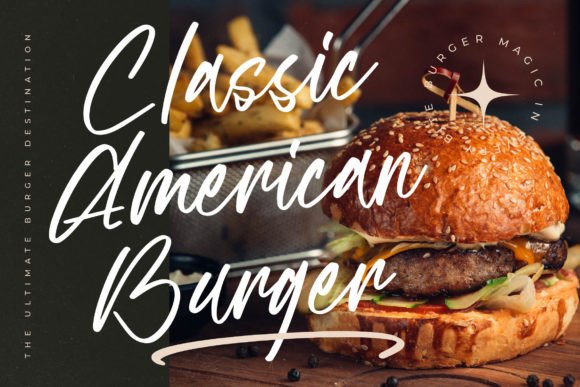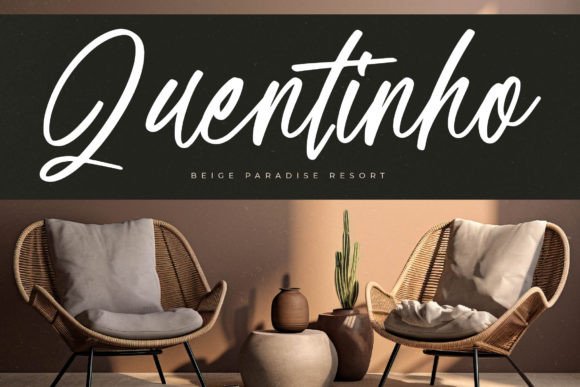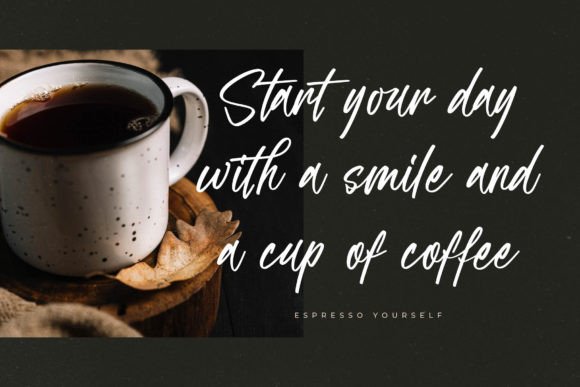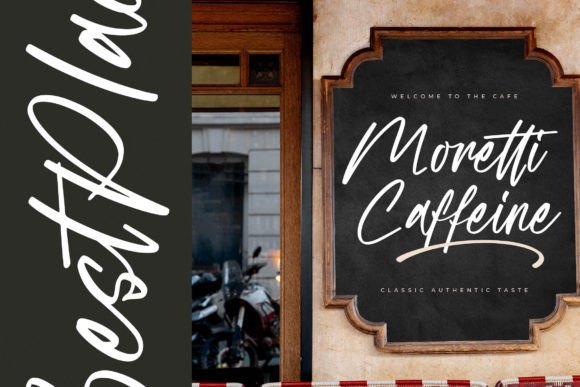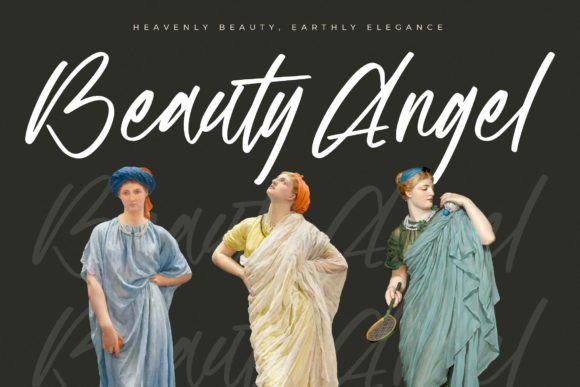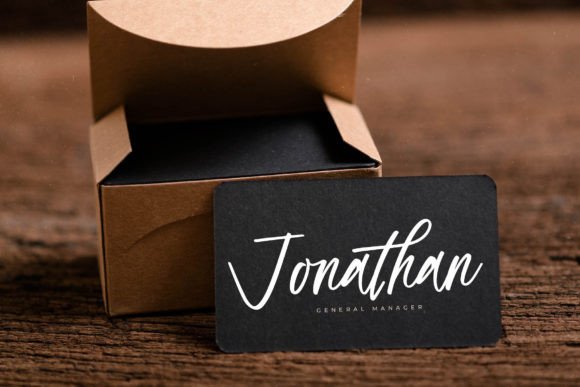
Discover the Elegance of Emillia Sartory Font: A Modern Handwritten Marvel
In the world of typography, few fonts manage to strike a balance between modern charm and timeless elegance. Emillia Sartory Font is one such exceptional typeface that has captured the hearts of designers and crafters alike. This modern and charming handwritten font exudes sophistication and personality, making it an ideal choice for upscale invitations, personal branding, and chic editorial designs.
The Characteristics of Emillia Sartory Font
Emillia Sartory Font boasts graceful, flowing strokes that dance across the page with a refined allure. Its sophisticated character is perfect for those seeking to add a touch of elegance to their projects. The font’s modern charm is balanced by a warmth that makes it relatable and engaging. Whether you’re designing wedding invitations, business cards, or editorial content, Emillia Sartory Font is sure to elevate your work.
Perfect for Upscale Designs
Emillia Sartory Font is particularly well-suited for upscale designs where elegance and sophistication are paramount. Its refined strokes and classic charm make it an excellent choice for:
- Wedding Invitations: Add a touch of luxury to your wedding stationery with Emillia Sartory Font. Its elegant strokes and sophisticated character make it perfect for formal wedding invitations, save-the-date cards, and thank-you notes.
- Personal Branding: Establish your personal brand with a font that exudes confidence and style. Emillia Sartory Font is ideal for creating business cards, letterheads, and social media graphics that reflect your professional yet charming personality.
- Editorial Designs: Elevate your editorial content with Emillia Sartory Font’s refined allure. Use it for magazine articles, blog posts, and advertising campaigns where a touch of elegance and sophistication is required.
Why Designers and Crafters Love Emillia Sartory Font
Designers and crafters love Emillia Sartory Font for its versatility and aesthetic appeal. Here are a few reasons why:
- Unique Character: Emillia Sartory Font has a distinct personality that sets it apart from other fonts. Its modern charm and elegant strokes make it a standout choice for designers seeking to create unique and memorable designs.
- Easy to Read: Despite its elegant strokes, Emillia Sartory Font is surprisingly easy to read, making it perfect for body text and headlines.
- Customizable: Emillia Sartory Font can be customized to suit your design needs. Experiment with different colors, sizes, and styles to create a unique look that reflects your brand or personal style.
Tips for Using Emillia Sartory Font
To get the most out of Emillia Sartory Font, here are a few tips to keep in mind:
- Pair with Neutral Backgrounds: Emillia Sartory Font looks stunning on neutral backgrounds such as white, beige, or light gray. This allows the font’s elegant strokes to take center stage.
- Experiment with Colors: Don’t be afraid to experiment with different colors to add depth and interest to your designs. Emillia Sartory Font looks beautiful in bold colors such as navy blue, emerald green, and burgundy.
- Mix with Other Fonts: Emillia Sartory Font can be paired with other fonts to create a unique and visually appealing design. Try pairing it with a clean sans-serif font for a modern contrast.
Emillia Sartory Font is a modern and charming handwritten font that exudes elegance and personality. Its refined allure and warmth make it perfect for upscale invitations, personal branding, and chic editorial designs. With its unique character, ease of readability, and customizability, Emillia Sartory Font is a must-have for designers and crafters seeking to elevate their projects. Discover the elegance of Emillia Sartory Font today and take your designs to the next level.